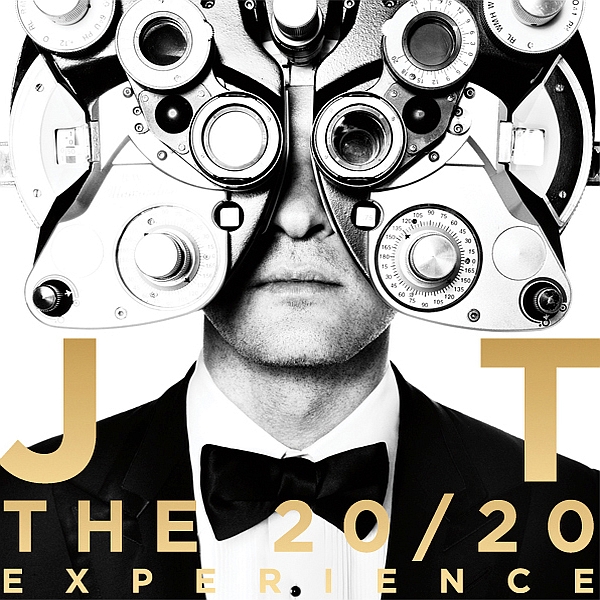
The 20/20 Experience Font
Fonts in UseThe 20/20 Experience is the third studio album by American singer-songwriter Justin Timberlake, released in 2013. It features a mix of R&B, pop, and soul music with production from Timbaland and Jerome "J-Roc" Harmon.
It is likely that the font featured on the cover is Gotham Bold, which is a popular geometric sans-serif font created by American type designer Tobias Frere-Jones in 2000.